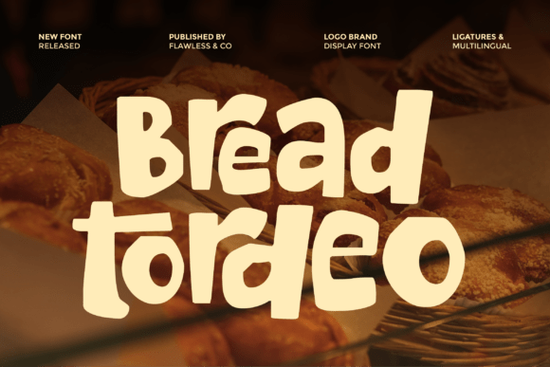
If you're looking for a typeface that brings bold personality to your creative work, the Tordeo Font is worth a close look. This display typeface stands out with its expressive letterforms and artistic shapes, making it a strong choice for projects where text needs to grab attention right away.
What makes Tordeo different from other display typefaces?
Many display fonts aim to be bold, but Tordeo goes further with its unconventional style and distinctive character details. Each letter has a sense of movement and originality that feels intentional rather than purely decorative. The shapes are modern without being overly trendy, which means your designs won't look dated in a year or two.
Where fonts like North Hype lean into strong, high-energy aesthetics, Tordeo takes a slightly more artistic approach. Its expressive details give it versatility across different creative contexts, from streetwear branding to editorial layouts.
What types of projects work best with this font?
Tordeo is a display typeface, so it's designed for headlines, titles, and short text not body copy. Here are some practical ways designers and creators use it:
- Branding and logos Works well for businesses that want a fresh, modern identity with real character.
- Poster design The bold letterforms make a strong visual statement at any size.
- Packaging Great for product labels, boxes, and wrapping that need to stand out on shelves.
- Digital content Fits social media graphics, YouTube thumbnails, and website headers nicely.
- Print-on-demand products T-shirt designs, mugs, tote bags, and other merchandise benefit from its striking look.
If you're working on something that calls for a more playful or whimsical feel, Sunday Swing is another display option worth exploring in that direction.
How do you pair Tordeo with other fonts?
Pairing display fonts can be tricky. Since Tordeo already carries a lot of visual energy, it works best alongside clean, simple typefaces. A basic sans-serif or a readable serif font for body text will balance out Tordeo's expressive style without competing for attention.
A few pairing tips to keep in mind:
- Use Tordeo for headlines only. Keep it to one or two lines max for the strongest impact.
- Choose a neutral companion font. Think fonts like Montserrat, Open Sans, or Lora for supporting text.
- Mind your spacing. Display fonts often need adjusted letter-spacing, especially at larger sizes.
- Test at different sizes. What looks great on a poster might need tweaking for a small product label.
Is Tordeo a good choice for print-on-demand sellers?
Absolutely. If you sell designs on platforms like Redbubble, Merch by Amazon, or Etsy, having a few distinctive display fonts in your toolkit makes a real difference. Tordeo's bold style translates well to t-shirt typography, sticker designs, and wall art prints.